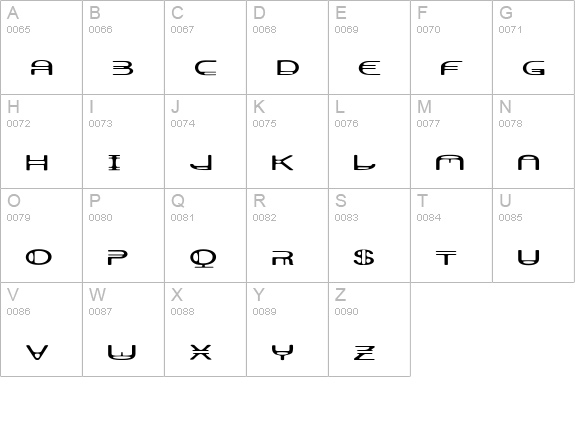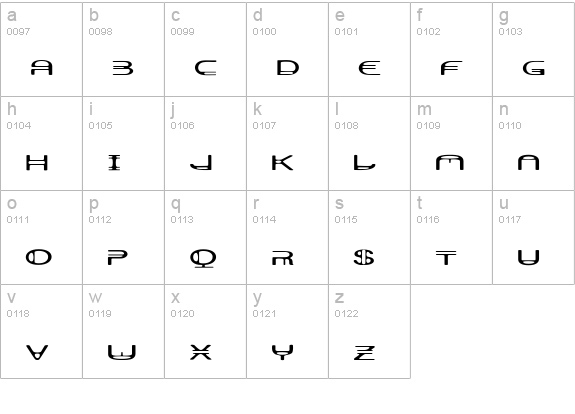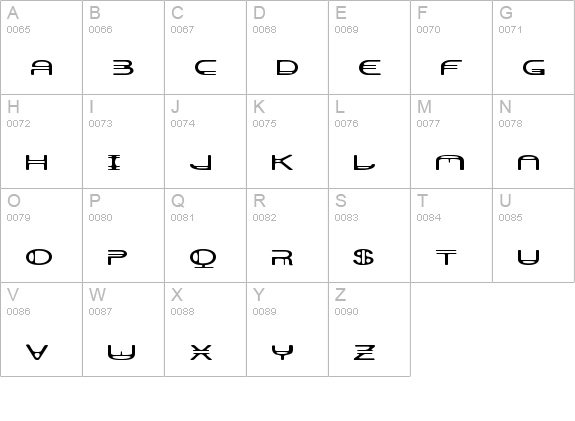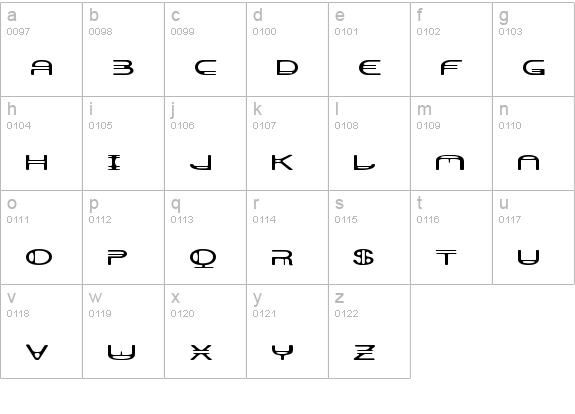
AeratorA Font Details
Introducing AeratorA font - a sleek and modern typeface that is perfect for adding a touch of sophistication to your design projects. This versatile font features clean lines and a contemporary feel, making it suitable for a wide range of applications including branding, advertising, and more. What sets AeratorA font apart is its unique combination of elegance and readability, making it a great choice for both display and body text. Whether you're designing a logo, creating a poster, or crafting a website, this font is sure to make your text stand out. And the best part? AeratorA font is available for free download at FontsMarket.com. Simply head over to the website and start using this stylish font in your projects today. Don't miss out on this opportunity to enhance your designs with the beauty of AeratorA font.